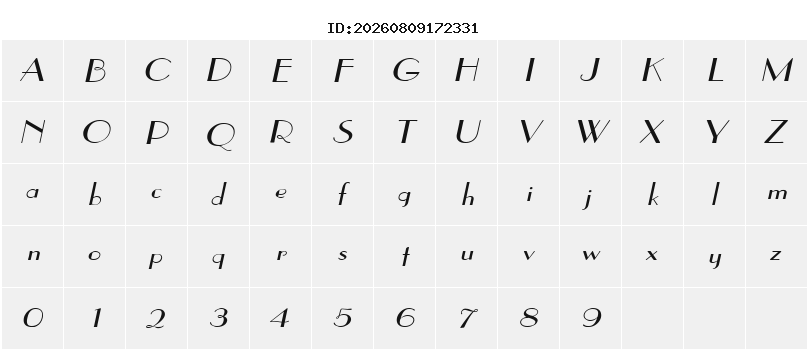
• Font Name: Paris Wide
Paris Wide.ttf is a modern, elegant sans-serif font designed for ultimate readability and visual harmony. Perfect for branding, headlines, web design, and print materials.